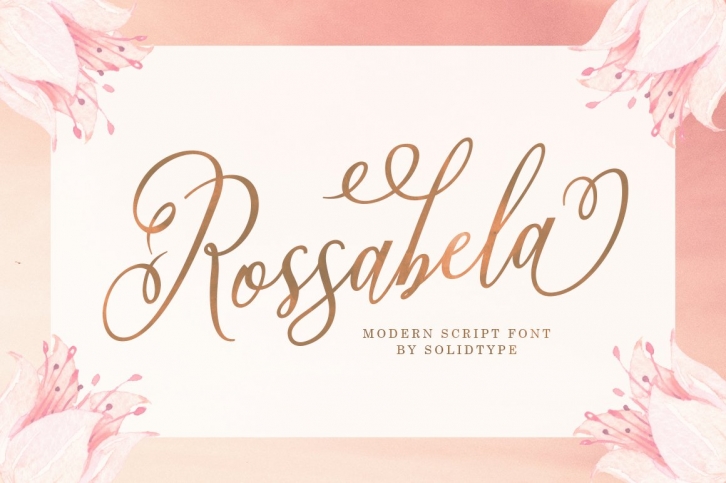
Rossabela Script is a trendy and unique font with an authentic style. It was designed by Solidtype and it's a great choice for creative people who need such a font. It was released on June 26, 2020 and the file size is 8.73 MB. Rossabela Script will add an organic vibe to any design idea!